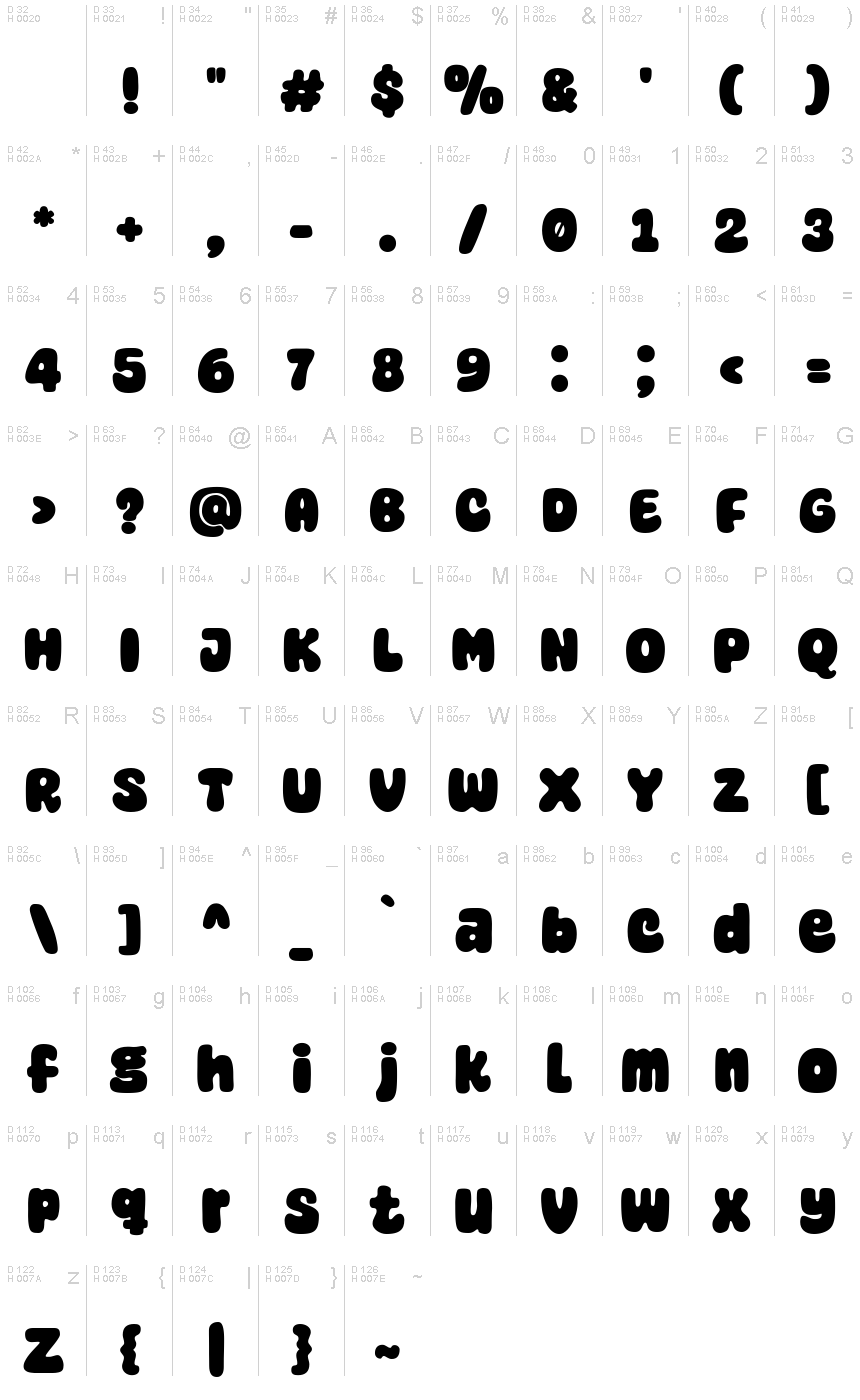
Super Frog font, designed by fsuarez913, stands out with its playful and vibrant cartoon style. This bold display typeface captures attention through its exaggerated curves and lively forms, creating an inviting atmosphere perfect for engaging audiences. The character design is remarkably whimsical, evoking a sense of fun and creativity that makes it ideal for a variety of applications-be it children's book covers, playful branding, or dynamic event posters.
This font shines in environments where energy and personality are key. It effortlessly communicates cheerfulness while maintaining legibility, blending seamlessly into both digital and print mediums. Whether used in headlines or promotional materials, Super Frog infuses any project with a refreshing flair that invites interaction and delight.
Super Frog